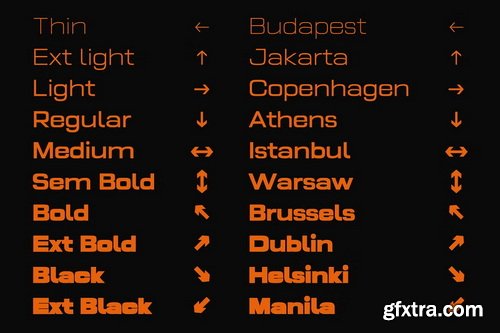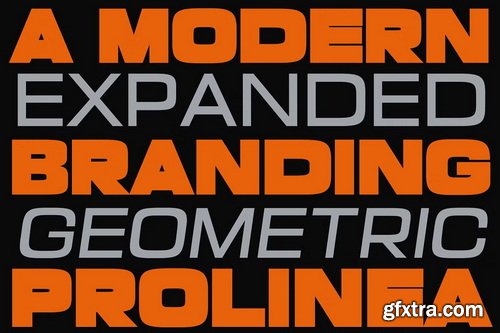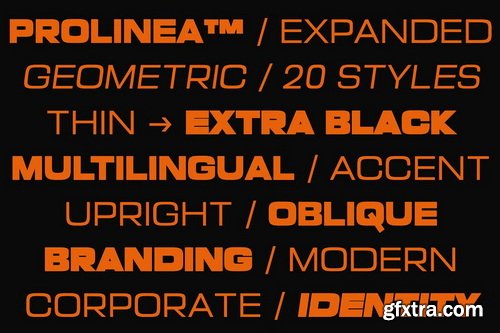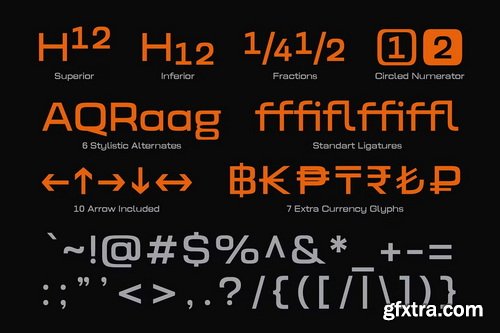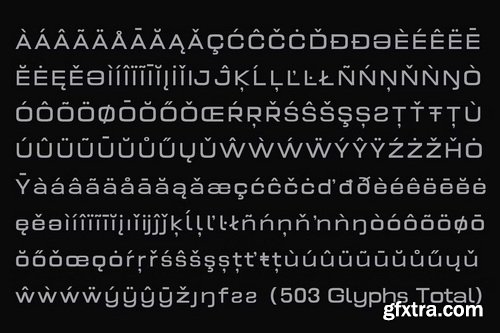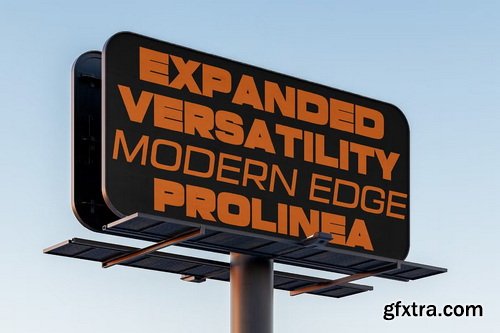
- Prolinea is a modern sans serif family designed with sleek proportions, clean geometry, and refined details. Inspired by professional product naming like “Pro” in mobile devices, Prolinea brings a balance of precision and contemporary aesthetics, making it ideal for corporate branding, tech industries, and editorial design. Its modern edge, versatile weight options, and expanded character set ensure a reliable fit for both digital and print use.
- Beyond its core design, Prolinea also features a set of thoughtful alternates and ligatures, giving designers creative freedom when building distinctive logotypes and expressive headlines. With smooth readability, expanded multilingual support, and carefully crafted details, Prolinea adapts seamlessly across media, elevating your projects with clarity, elegance, and timeless style.